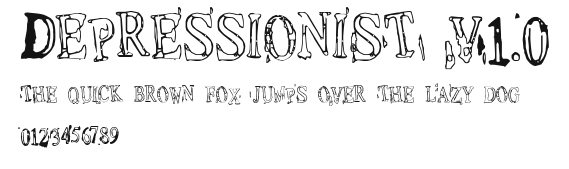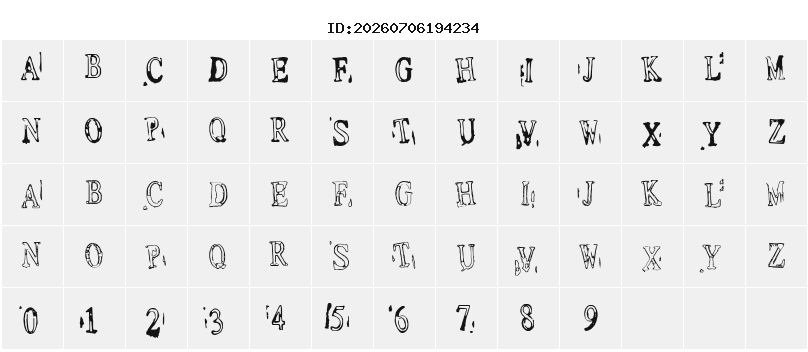
• Font Name: Depressionist v1.0
• Full Font Name: Depressionist v1.0
• Version: 2000; 1.0, Rubberstamp release
• Description: Made from several rubber-stamps with letters on, I bought it in a toystore. This font should cost money, but its free, www.mrfisk.com - but you are free to donate, contact me: fonts@mrfisk.com
About Depressionist v1.0.ttf